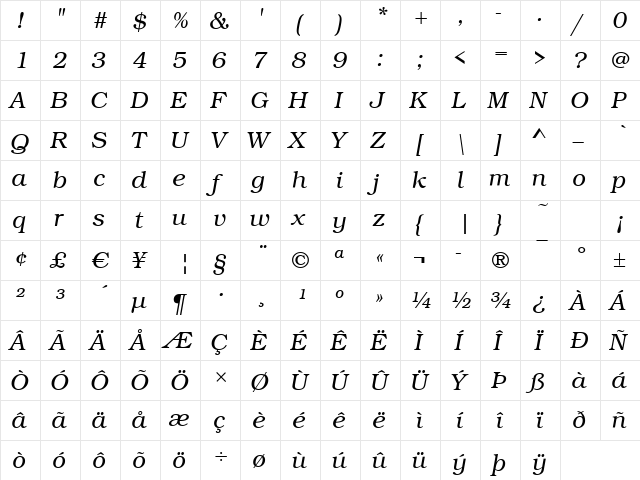
Book-Light Italic
Design Context for Book-Light Typeface
Book-Light takes a measured approach to typography — its balanced proportions and neutral character make it a reliable workhorse for both digital and print work. Its italic angle brings a sense of urgency and motion to the letterforms. Its slender proportions lend an understated elegance to any composition.
Pro Tip: Try Book-Light for annotation and caption copy alongside an upright companion — the contrast in angle creates a dynamic but ordered typographic system.